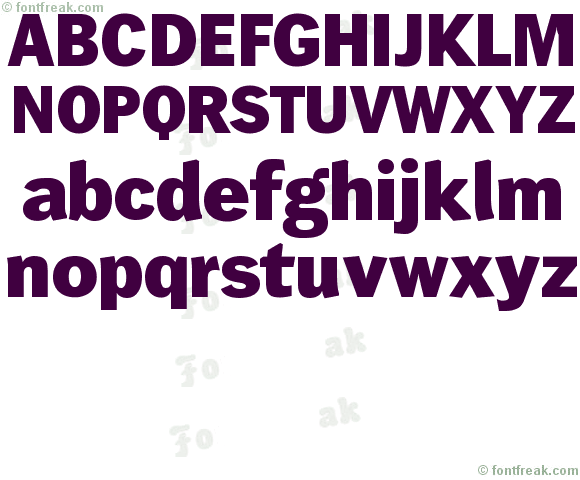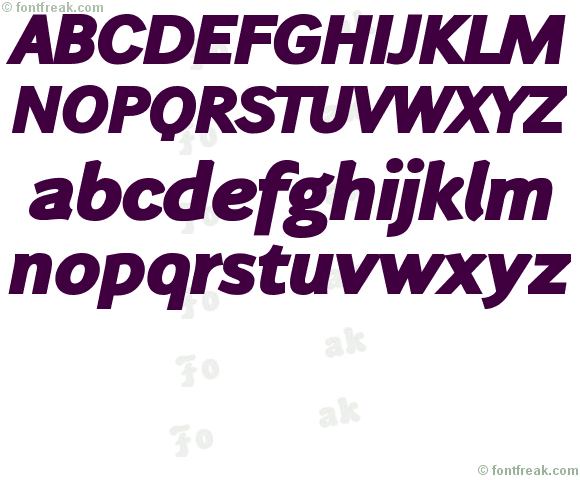
Wendelin-Fett
About Wendelin-Fett
Wendelin-Fett, designed by Ingo Zimmermann in 1997, is a versatile display font that captures attention with its bold and striking appearance. Characterized by its sans-serif style, this typeface exhibits a strong stroke weight and a sturdy structure, making it ideal for a variety of creative applications. The visual elements of Wendelin-Fett include a clean and modern aesthetic, with minimal contrast between thick and thin strokes, which contributes to its legibility and impact. The spacing is well-balanced, ensuring clarity even at larger sizes, while the simple yet powerful letterforms add to its overall appeal.
This font is perfect for use in a range of contexts. Graphic designers can utilize Wendelin-Fett for eye-catching headlines on websites or promotional materials. Small business owners may find it ideal for branding, as it conveys a sense of strength and reliability. Content creators can use this font in creating engaging social media graphics or marketing brochures. Additionally, Wendelin-Fett works well for product packaging and event signage, particularly for events that require a bold statement, such as music festivals or art exhibitions.
What sets the Wendelin-Fett font apart is its unique blend of simplicity and boldness, making it an exceptional choice for a variety of design projects. The Wendelin-Fett font free download offers an opportunity to elevate your design work with a typeface that stands out while remaining highly functional.